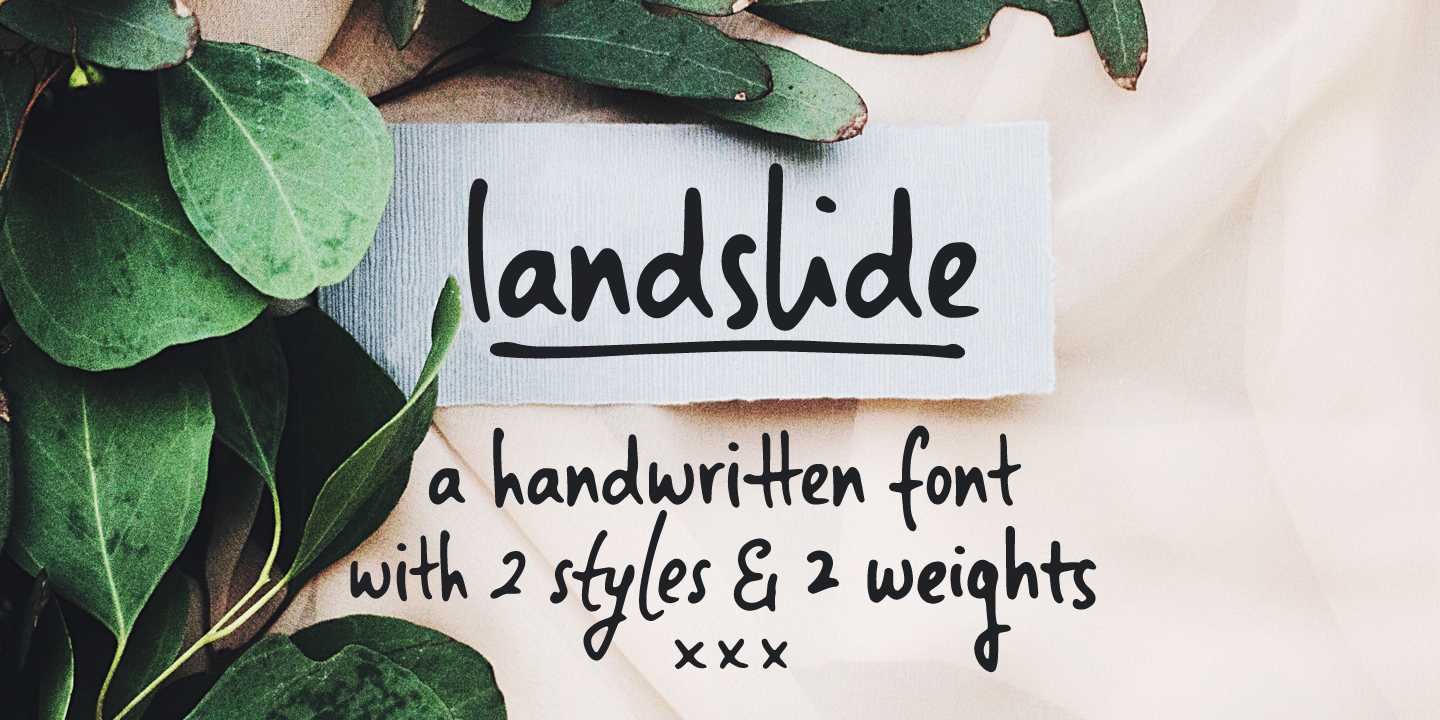
Landslide Font Free Download is a bold, dynamic typeface that captures attention with its strong, hand-drawn brush strokes. Perfect for posters, album covers, social media graphics, branding, and apparel designs, this font brings energy and movement to any creative project. Its rugged, textured appearance makes Landslide Font ideal for designs that need a raw, authentic feel.
With Landslide Font Free Download, you’ll receive a full set of uppercase letters, numbers, and essential punctuation, offering flexibility for both print and digital applications. Whether you’re designing promotional materials, event flyers, or eye-catching logos, this font delivers a powerful visual impact while maintaining readability. Its handcrafted style adds personality and edge to your work.